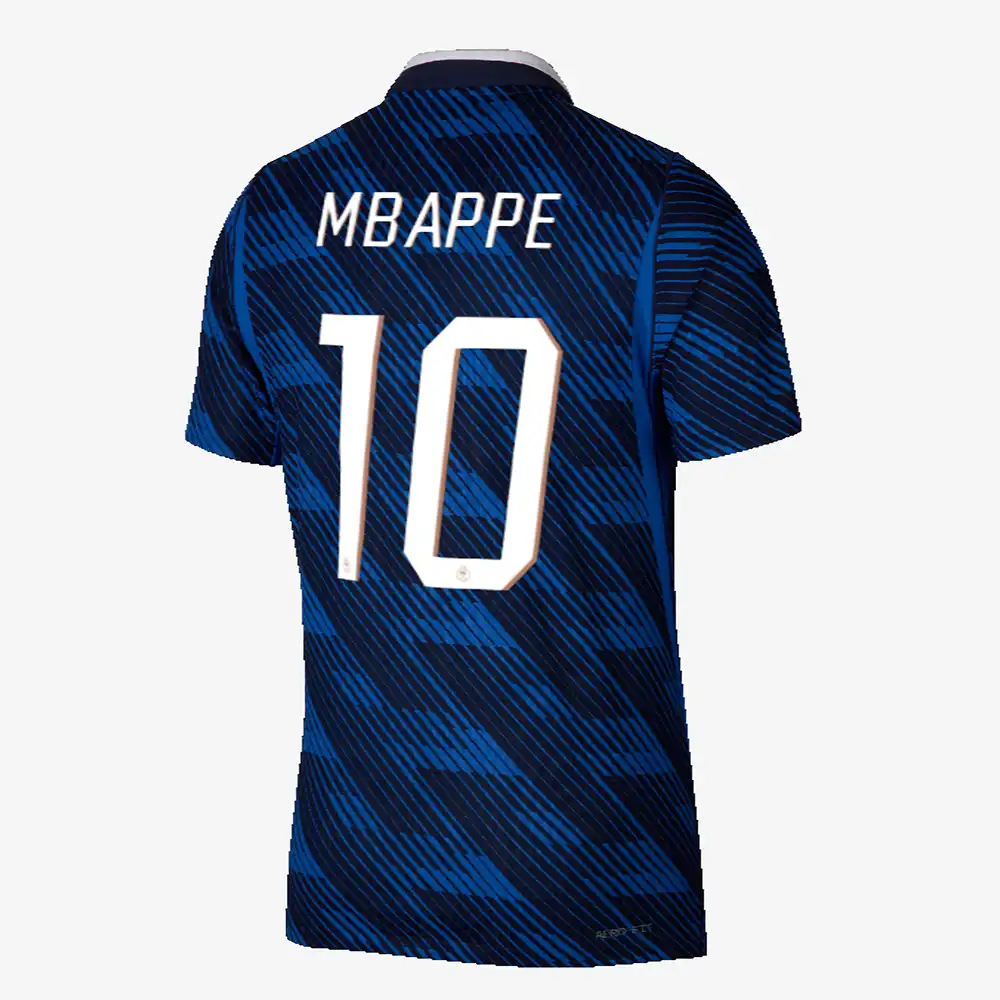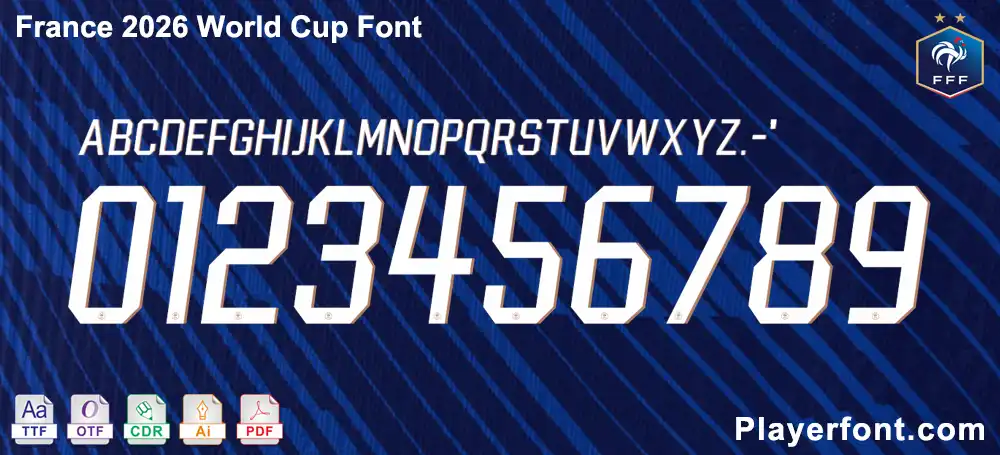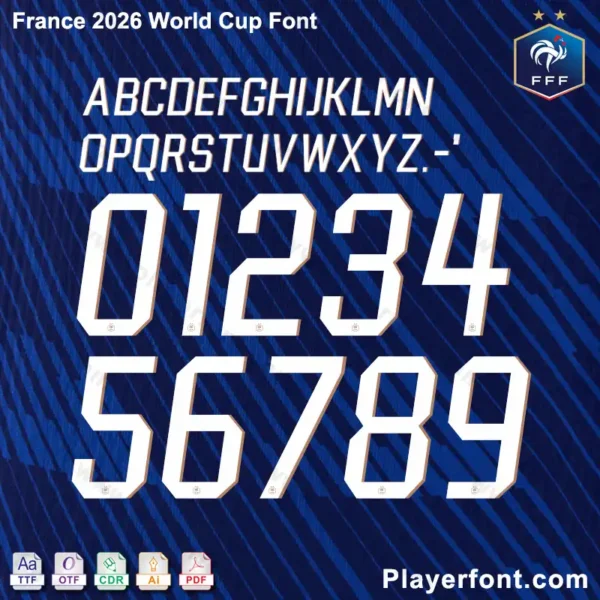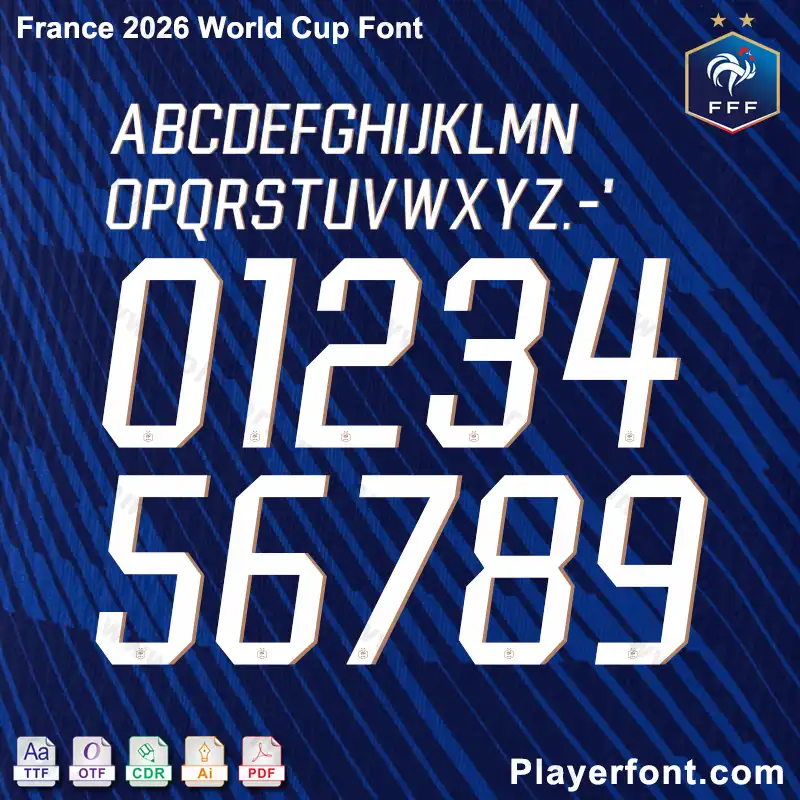
Bring the spirit of Les Bleus to your designs! This premium digital kit features the France 2026 World Cup Font, perfect for creating custom soccer jerseys, fan gear, and sports branding.
Complete France 2026 World Cup font showing uppercase letters A-Z, numbers 0-9, and punctuation.
Complete alphanumeric set of the official-style France 2026 World Cup font.
Premium France 2026 World Cup Jersey Typography Kit
Elevate your sports design projects with the most accurate France 2026 World Cup Font. Whether you are a professional kit designer or a passionate fan, this font pack provides the essential typography used by the French National Team (FFF) for the upcoming 2026 tournament.
• Complete Character Set: Includes all uppercase letters (A-Z) and numbers (0-9) as seen on the official France National Team Kits.
1. High Precision: Meticulously crafted to match the sharp lines and unique curves of the 2026 kit design.
Detailed display of the France 2026 World Cup font numbers from 0 to 9 on a blue background.France 2026 World Cup Font Download